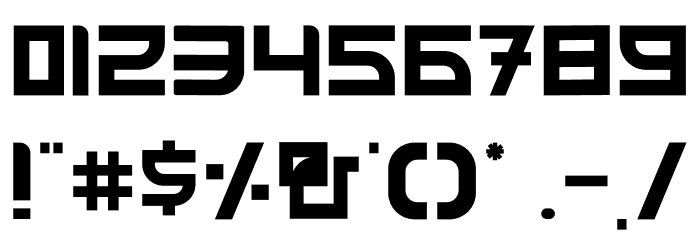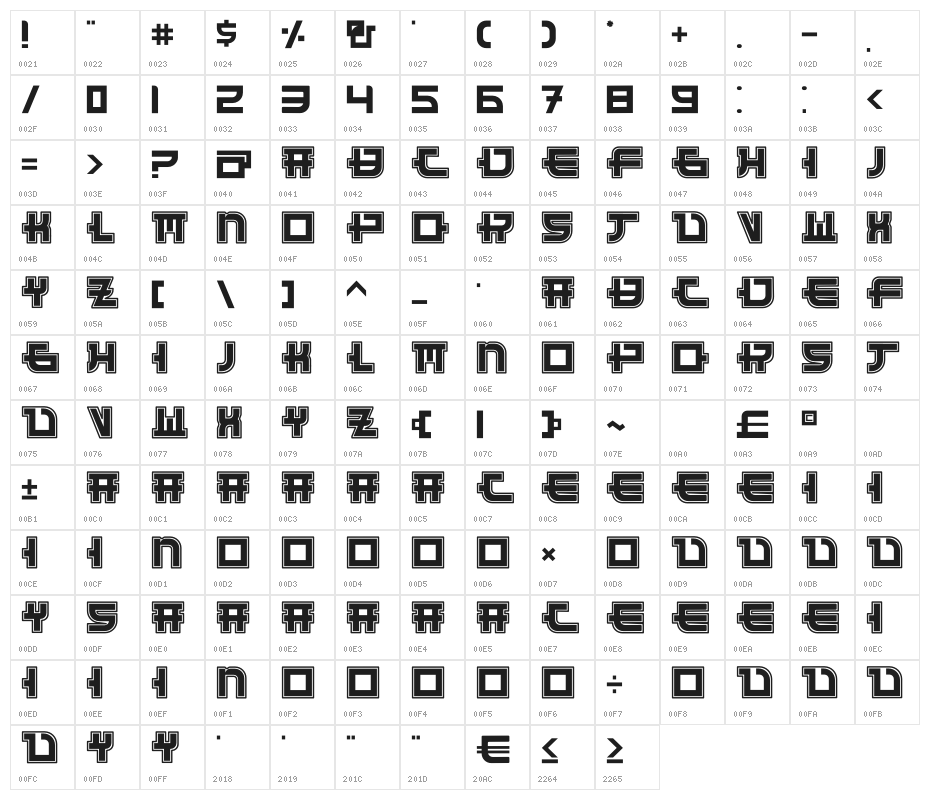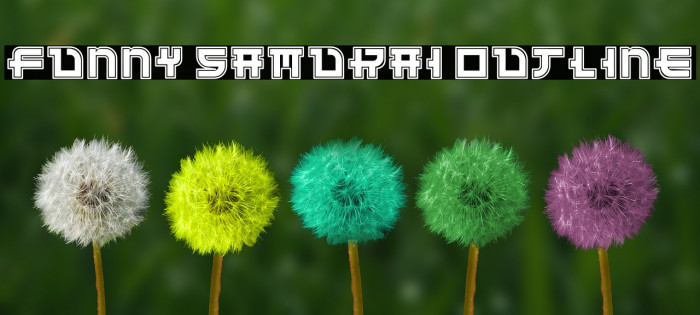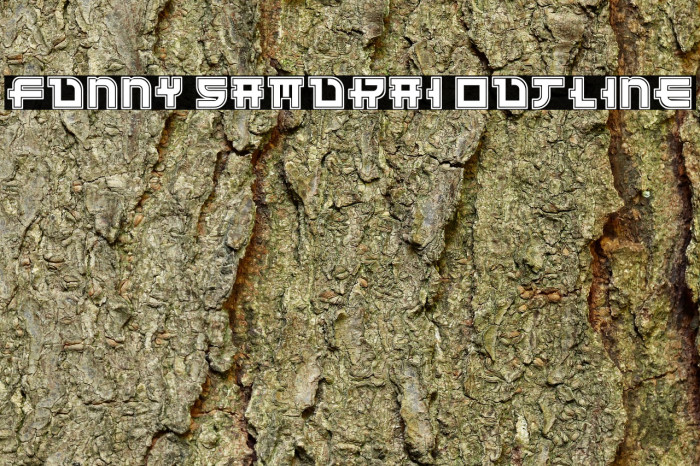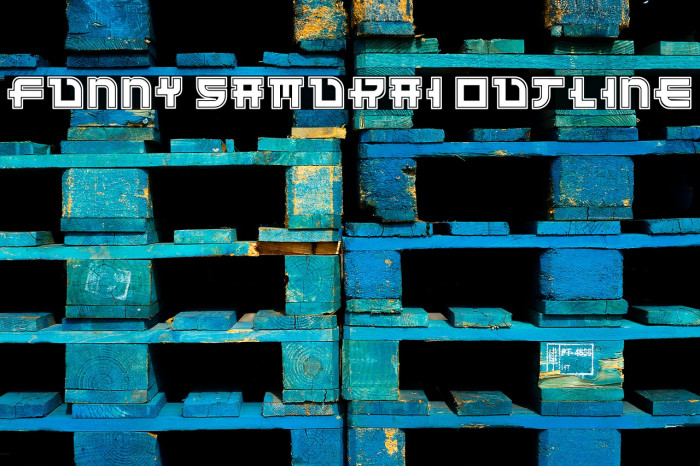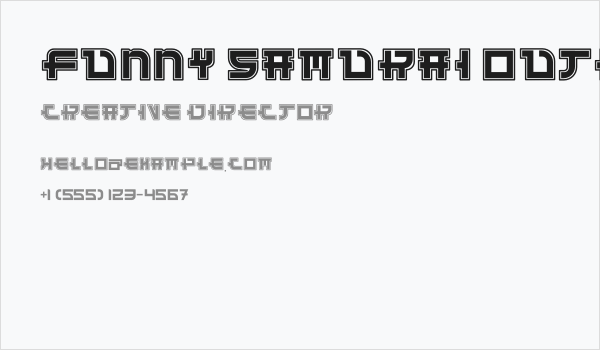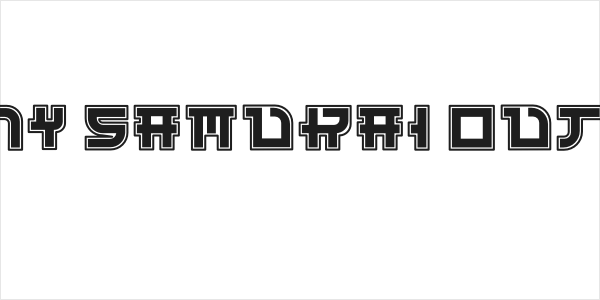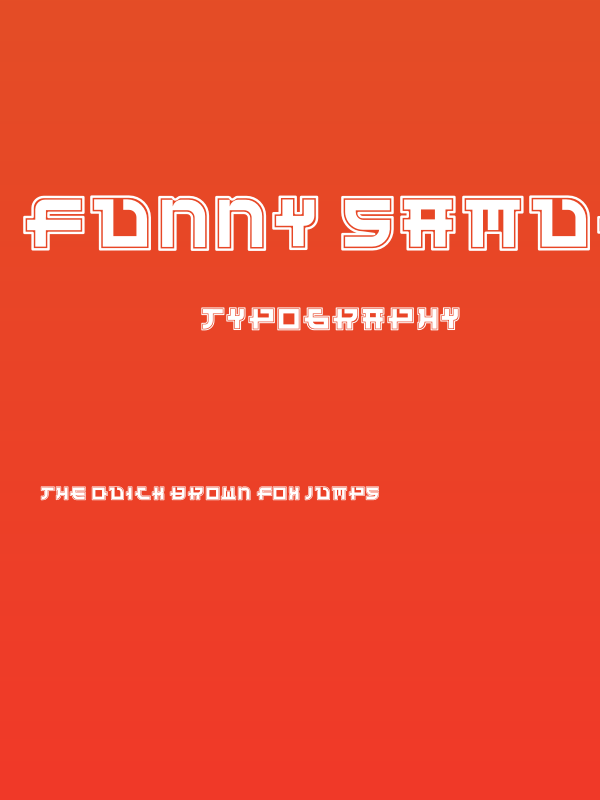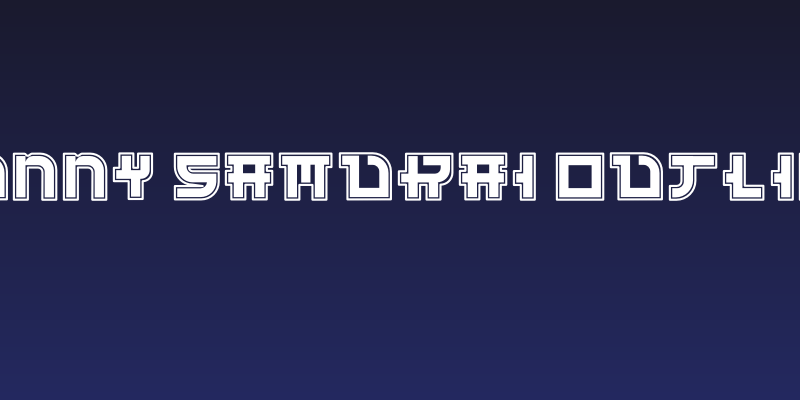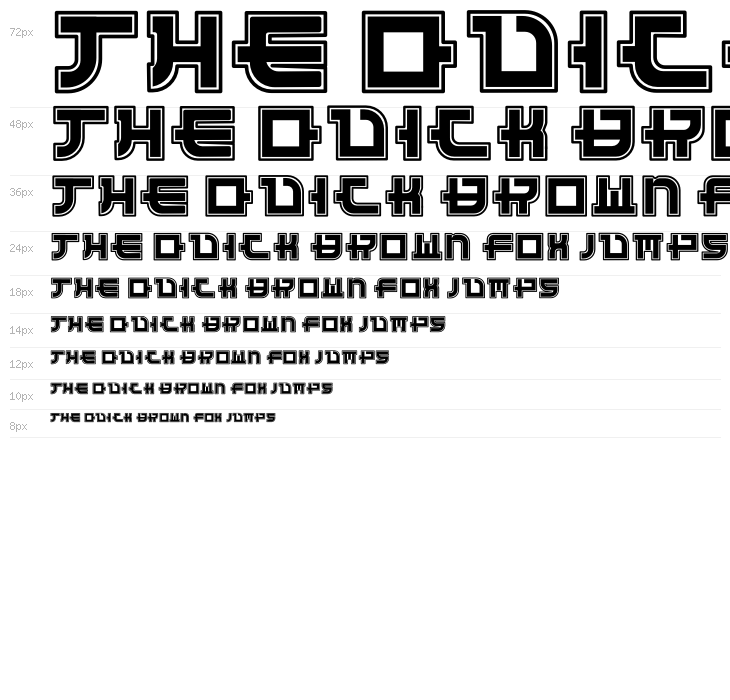
Funny Samurai Outline Font
This font features a bold, geometric design with a distinct outline that gives it a striking, modern appearance. The characters are constructed with sharp angles and a blocky structure, creating a sense of strength and stability. The outline adds depth and dimension, making each letter stand out prominently. The font maintains a consistent weight throughout, ensuring uniformity across all characters. Its unique style is reminiscent of futuristic or tech-inspired themes, making it ideal for projects that require a bold and eye-catching typeface. The numbers and special characters follow the same design principles, ensuring a cohesive look across all elements.
| Proposed Projects | Ideal for futuristic designs, tech branding, video game titles, and eye-catching posters. |